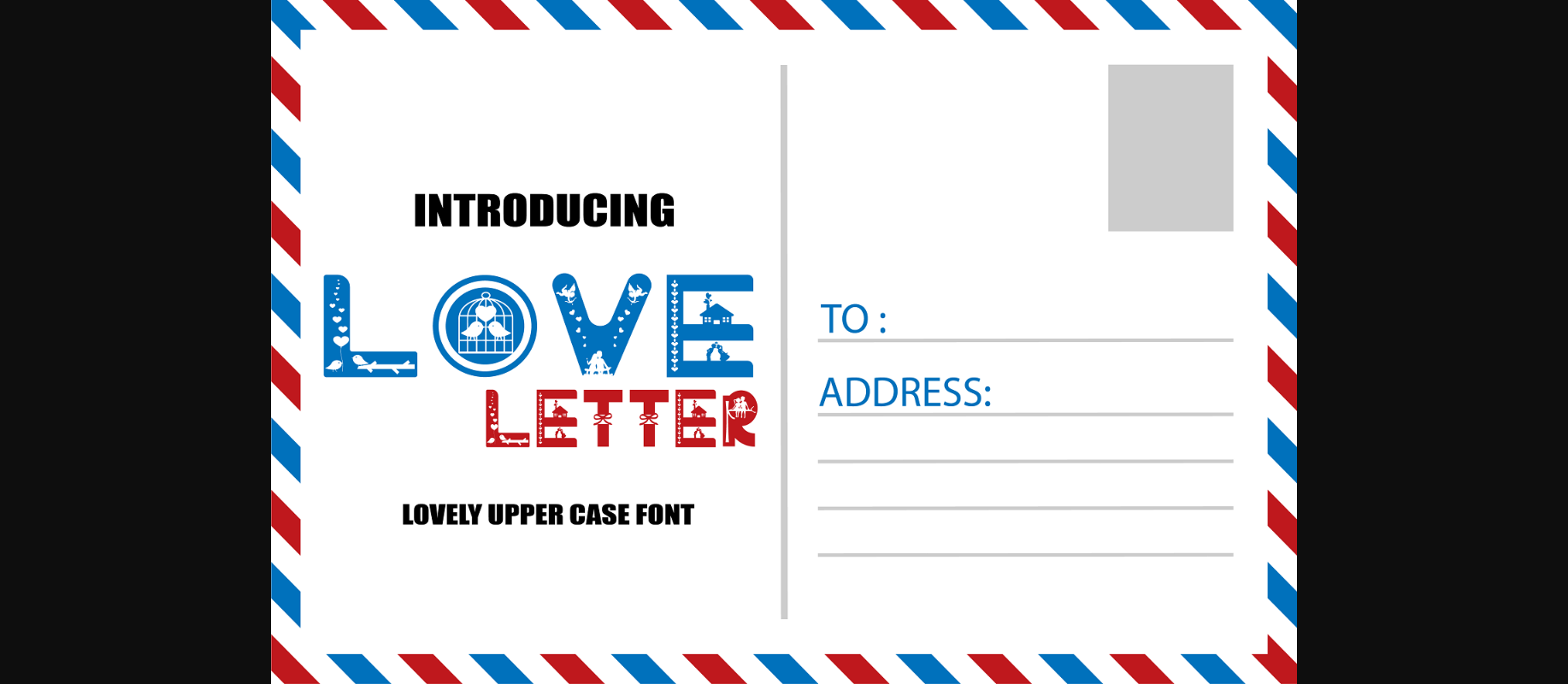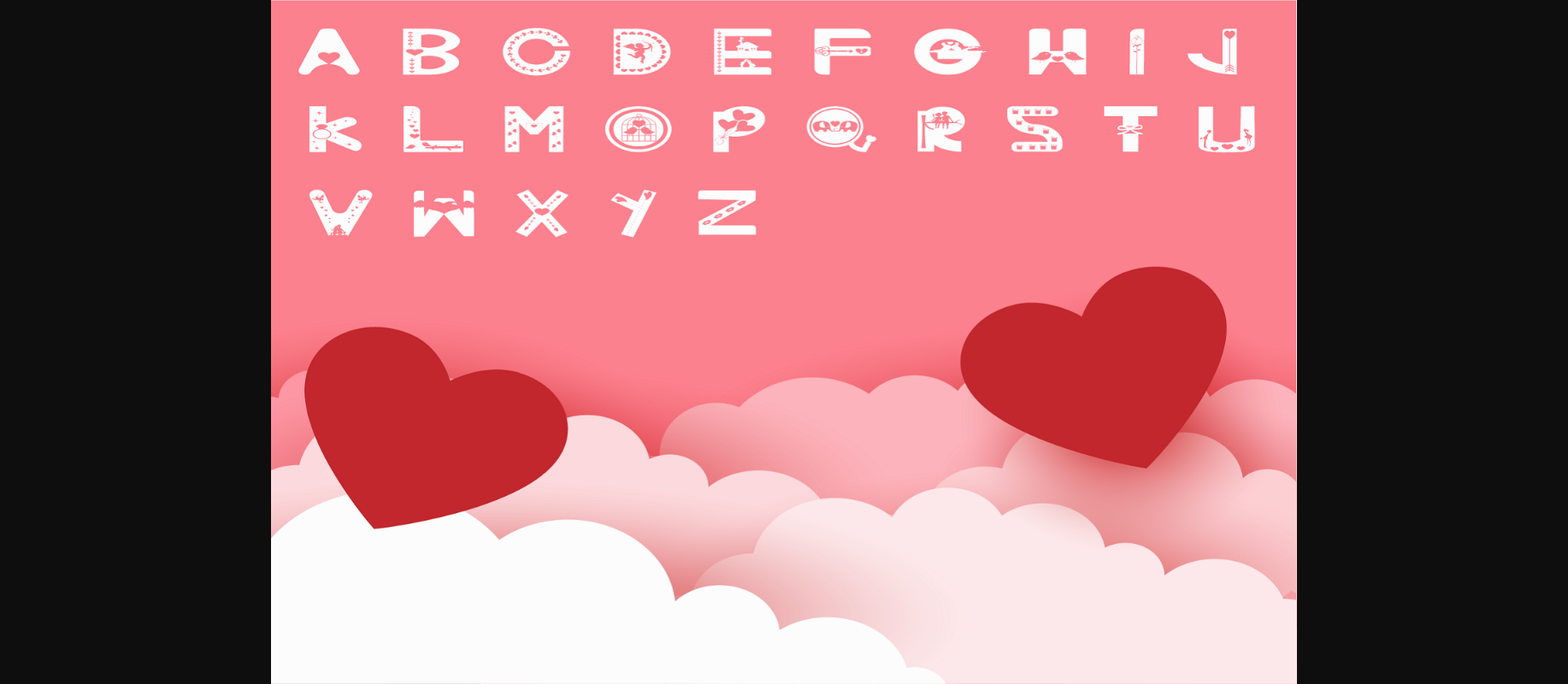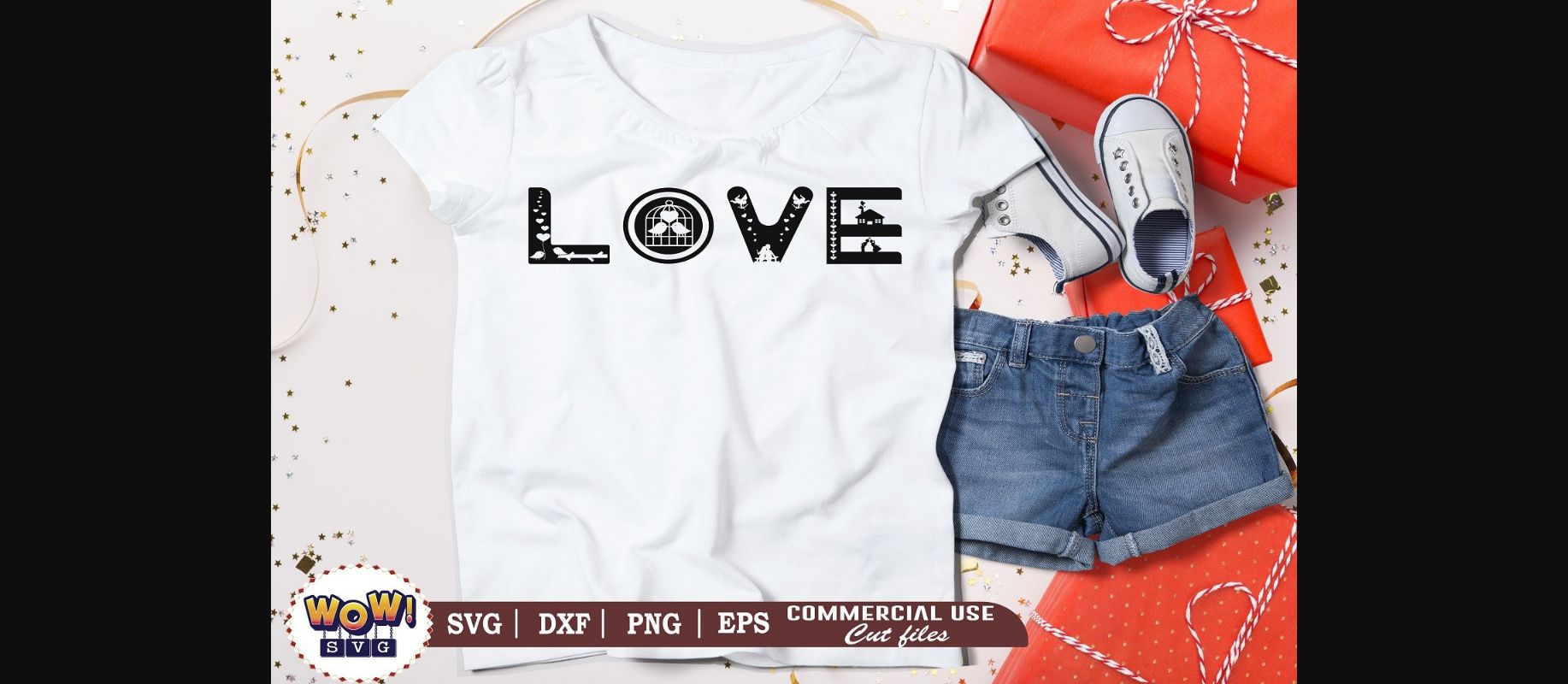
HomeDecorative FontsLove Letter Font Decorative Fonts Love Letter Font FacebookXPinterestWhatsApp 1 of 5 ... Love Letter Font Poster 2... Love Letter Font Poster 3... Love Letter Font Poster 4... Love Letter Font Poster 5... About Love Letter Font Love letter is a cute and lovable decorative font. Add this sweet font to your creative Valentine’s Day ideas, and notice how it will make them stand out! DOWNLOAD NOW People also explored Sherlinda Font Honeylove Font Hello Mom Font Adellina Font Ameliora Font Holly Jolly Font Sing Aloud Font Colosso Prescode Versatile Font 276 0 TagsLove Letter Font Previous articleGreat Sunday FontNext articleBalloons Font LEAVE A REPLY Cancel reply Comment: Please enter your comment! Name:* Please enter your name here Email:* You have entered an incorrect email address! Please enter your email address here Website: Save my name, email, and website in this browser for the next time I comment. Personal Use Free Bebas Neue Font Personal Use Free Read more about this font Sellena Brush Font Personal Use Free Read more about this font Handayani Personal Use Free Read more about this font Spectrashell Personal Use Free Read more about this font BLOG How to Cut Any Font on Cricut: Convert a Font to SVG (Free) Turn any font into a clean SVG so it cuts crisp on Cricut - a quick 3-step workflow using a free font-to-SVG tool. Free Fonts Risk: Why Free Fonts Can Be Dangerous for Designers Elegant Wedding Invitation Fonts – Handwritten & Script Fonts Free vs Paid Fonts: Why Investing in Premium Fonts Is Worth It